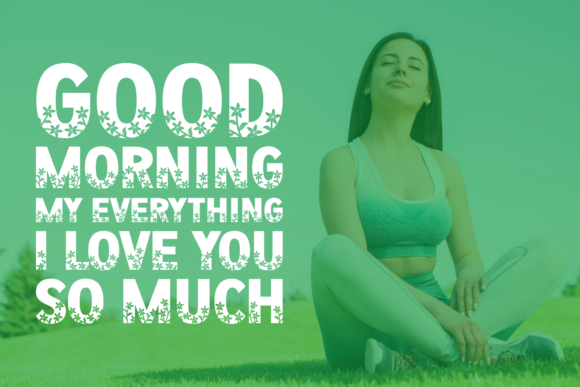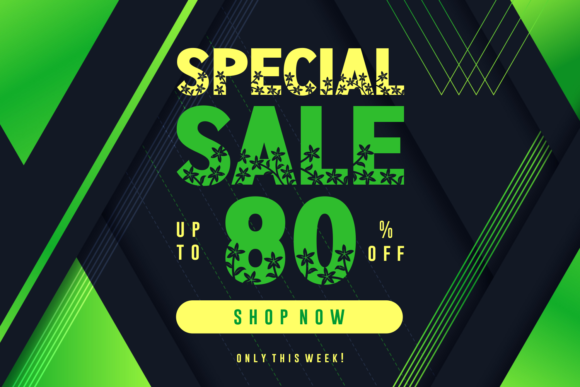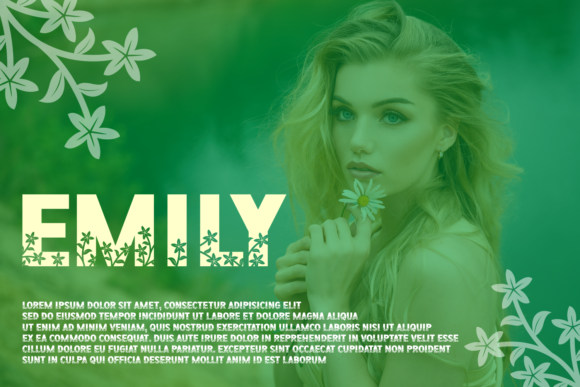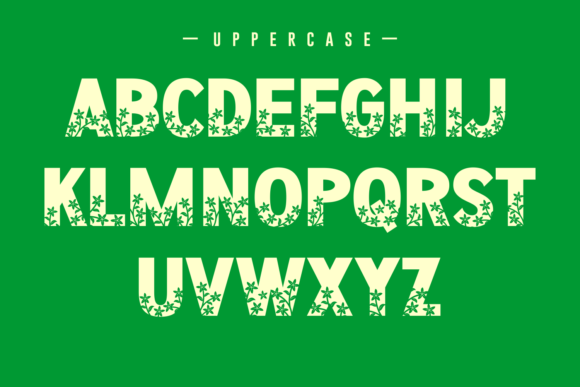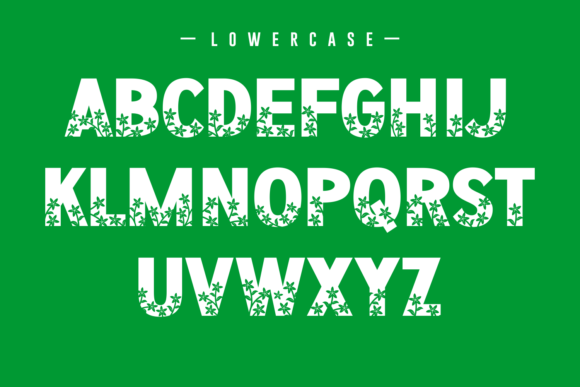
Introducing Balova Font: The Perfect Blend of Thickness and Freshness
Are you a designer or crafter looking for a font that adds a touch of loveliness to your creations? Look no further than Balova Font! This thick lettered yet fresh and flowery decorative font is perfect for a variety of projects, from cartoon-related designs to children’s games and beyond. In this article, we’ll dive into the world of Balova Font and explore its features, benefits, and uses.
What is Balova Font?
Balova Font is a decorative font that boasts a unique blend of thickness and freshness. Its bold, chunky letters are perfect for making a statement, while its flowery and elegant design elements add a touch of sophistication. This font is ideal for designers and crafters who want to add a playful yet refined touch to their creations.
Key Features of Balova Font
• Thick and Bold Letters: Balova Font features thick and bold letters that are perfect for headlines, titles, and emphasis.
• Fresh and Flowery Design: The font’s flowery and elegant design elements add a touch of freshness and sophistication to any project.
• Highly Versatile: Balova Font is suitable for a wide range of projects, from cartoon-related designs to children’s games, posters, and more.
• Easily Readable: Despite its bold and decorative nature, Balova Font is easily readable, making it perfect for body text and captions.
Benefits of Using Balova Font
So, why choose Balova Font for your next project? Here are just a few benefits of using this amazing font:
• Adds a Touch of Personality: Balova Font adds a touch of personality and whimsy to any project, making it perfect for designers and crafters who want to stand out.
• Increases Engagement: The font’s bold and playful design elements can help increase engagement and capture the attention of your audience.
• Perfect for Children’s Designs: Balova Font is ideal for children’s designs, such as games, posters, and activity sheets, due to its fun and playful nature.
• Easy to Pair with Other Fonts: Balova Font pairs well with a variety of other fonts, making it easy to create a cohesive and visually appealing design.
Using Balova Font in Your Designs
So, how can you use Balova Font in your designs? Here are a few ideas to get you started:
• Cartoon-Related Designs: Use Balova Font to add a playful touch to your cartoon-related designs, such as character logos, posters, and animations.
• Children’s Games: Balova Font is perfect for children’s games, such as puzzles, activity sheets, and educational materials.
• Posters and Flyers: Use Balova Font to create eye-catching posters and flyers for events, promotions, and products.
• Digital Products: Balova Font can be used in digital products, such as ebooks, printables, and social media graphics.
Font Name Balova Font
Author Jasm (7NTypes)
In conclusion, Balova Font is a versatile and decorative font that adds a touch of loveliness to any project. Its thick and bold letters, combined with its fresh and flowery design elements, make it perfect for a wide range of designs, from cartoon-related designs to children’s games and beyond. Whether you’re a designer or crafter, Balova Font is an amazing choice for adding a playful yet refined touch to your creations.